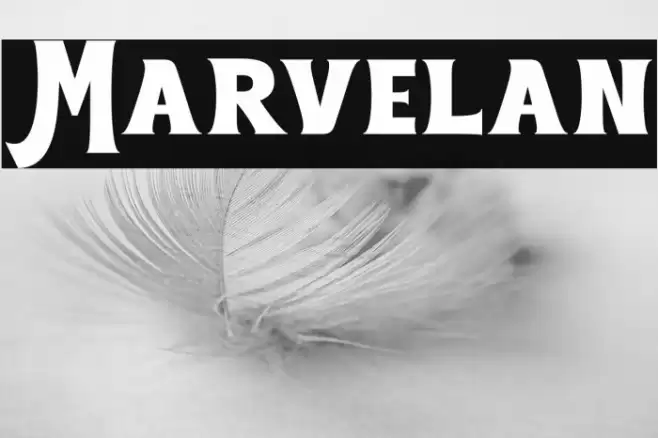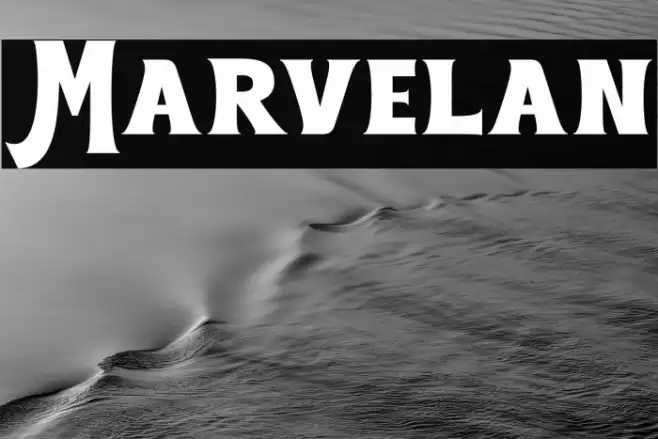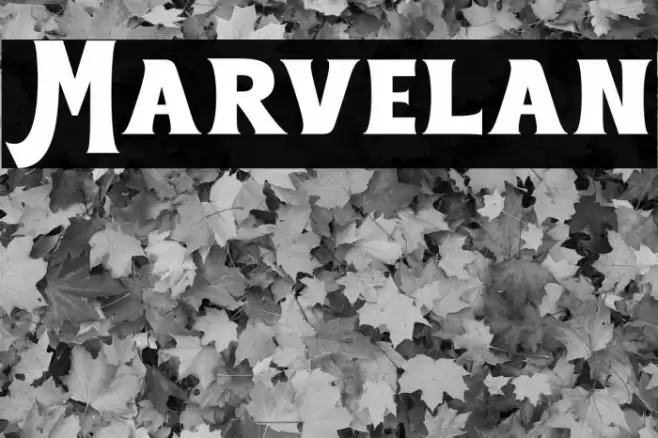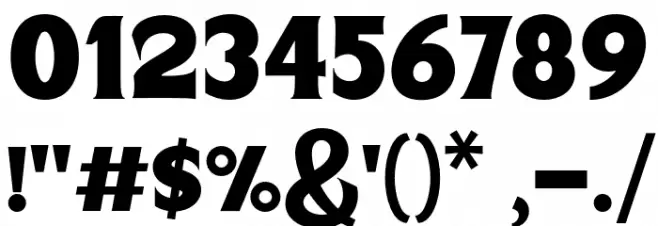
Marvelan Font
Marvelan Description
This font features a bold and dynamic style with a strong presence, characterized by its thick strokes and slightly curved edges. The uppercase letters have a distinct flair, with some characters exhibiting unique serifs that add a touch of elegance. The lowercase letters maintain a consistent weight, providing a harmonious balance between the uppercase and lowercase sets. Numbers are robust and clear, ensuring readability. Special characters are well-integrated, matching the overall bold aesthetic. This font is ideal for making a statement, with its eye-catching design and powerful visual impact.
A bold, dynamic font with thick strokes and unique serifs, perfect for impactful designs from Regular fonts.
- Proposed Projects: Ideal for branding, poster design, headlines, and any project requiring a strong visual impact.